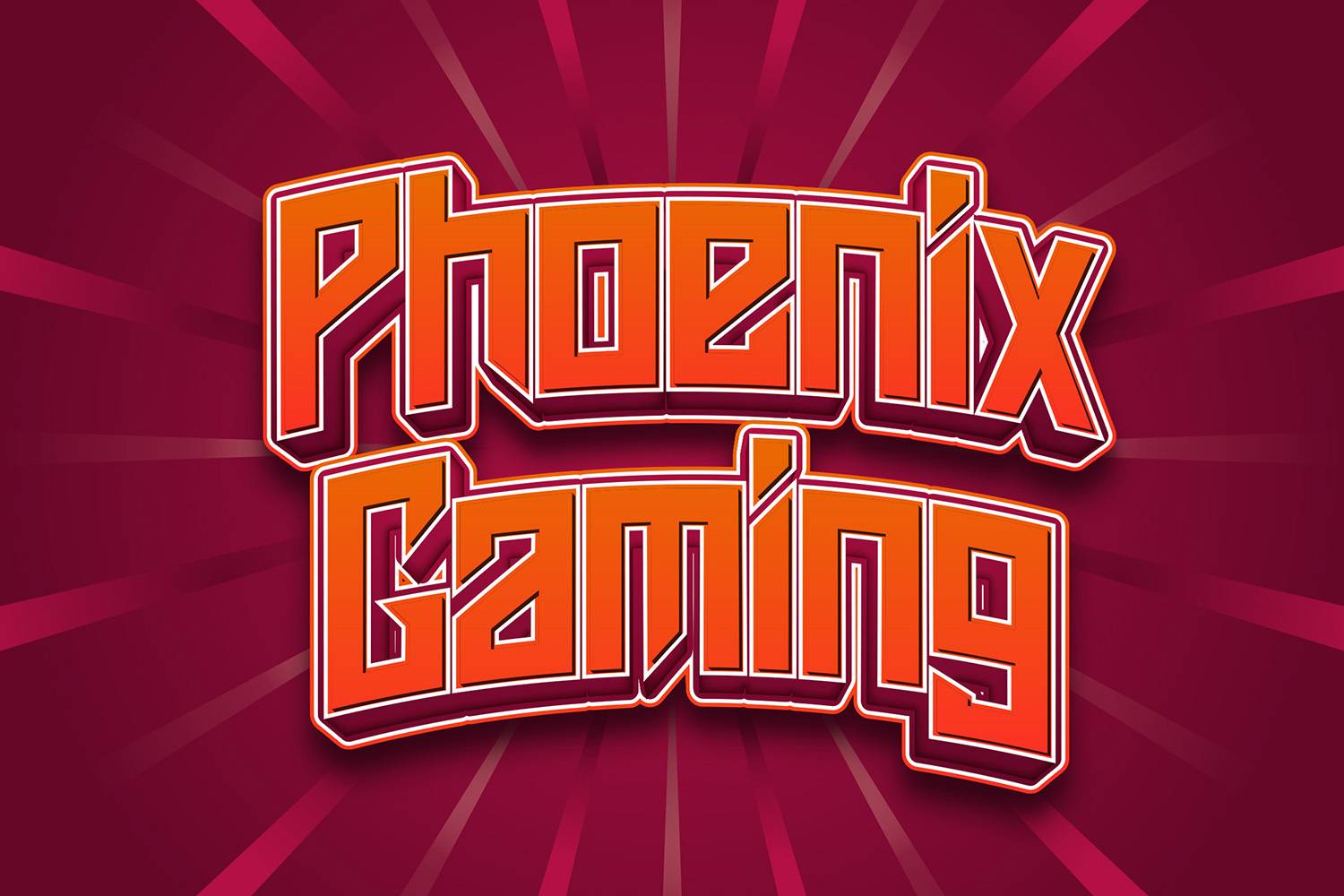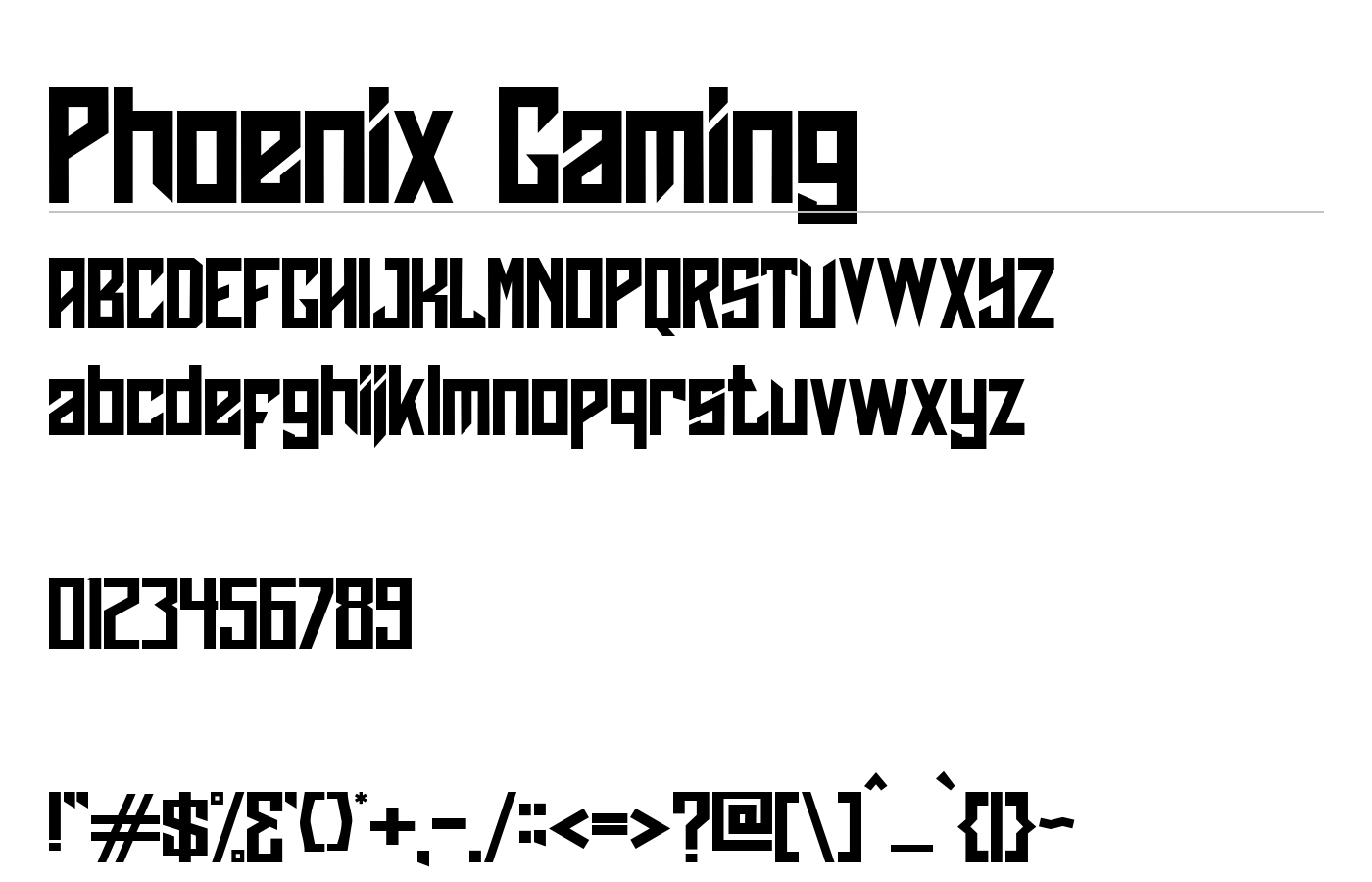
Phoenix Gaming Font is a bold, condensed sans serif typeface with sharp, angular letterforms that give it a futuristic and edgy vibe. Its high contrast and geometric strokes make it perfect for dynamic, modern designs, especially in gaming, tech, and digital branding where a strong, impactful presence is needed. This font works best in headlines, logos, and posters that demand attention and convey a sense of energy and innovation.
Phoenix Gaming Font
About Phoenix Gaming Font